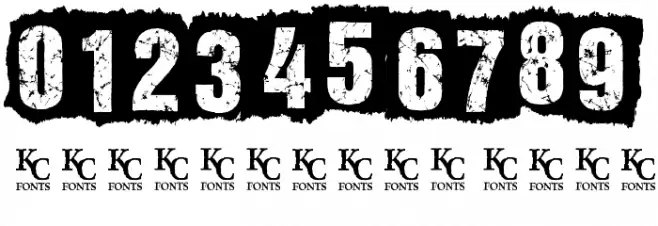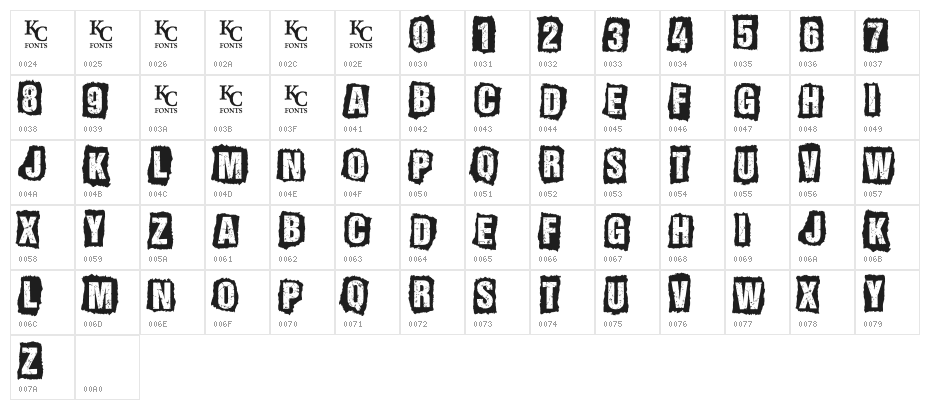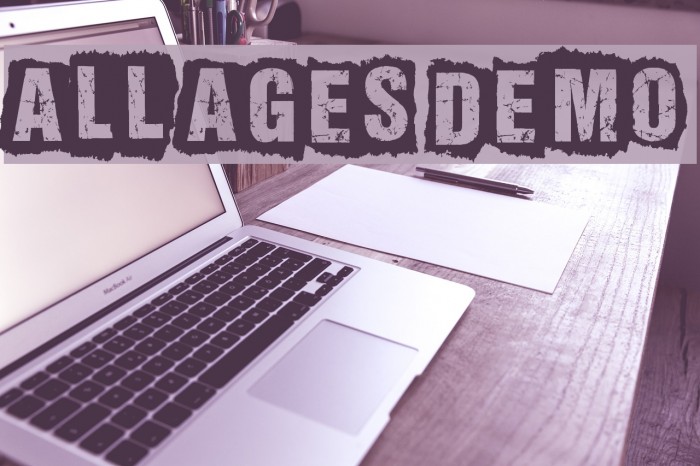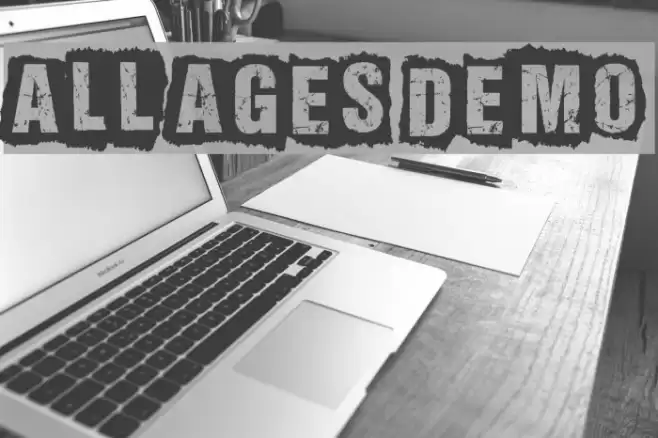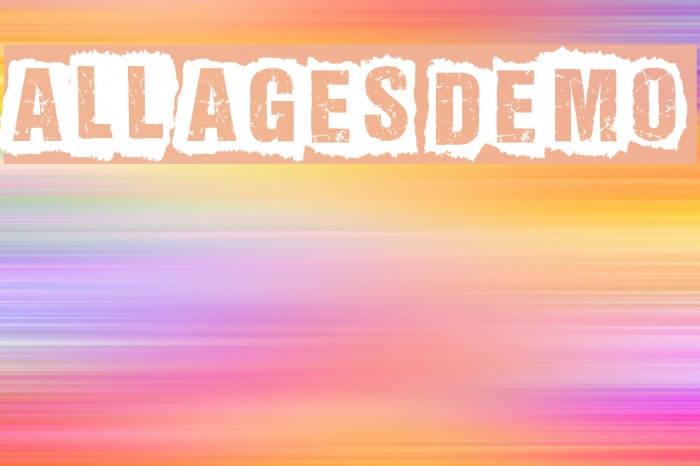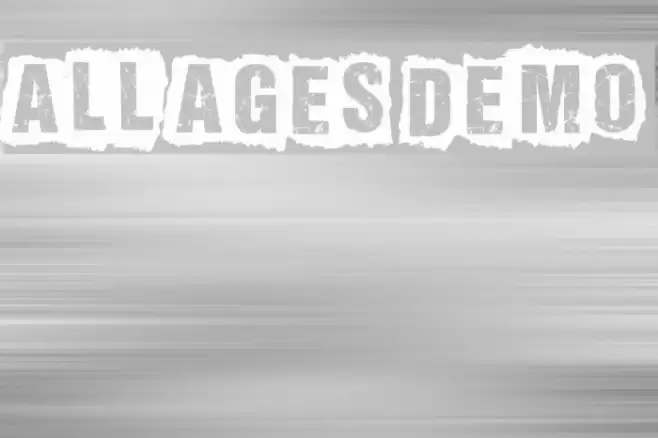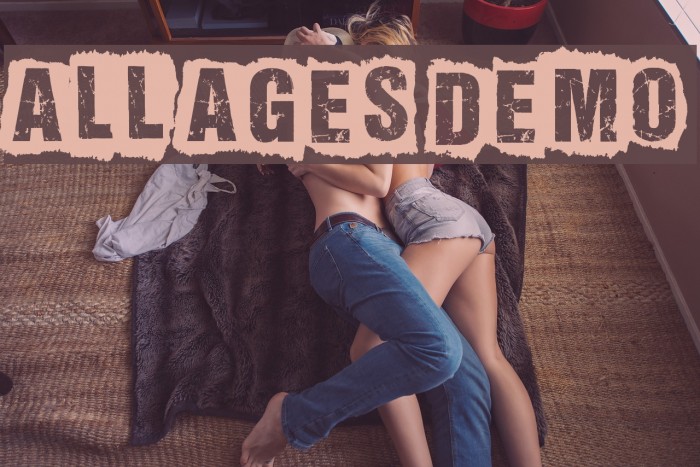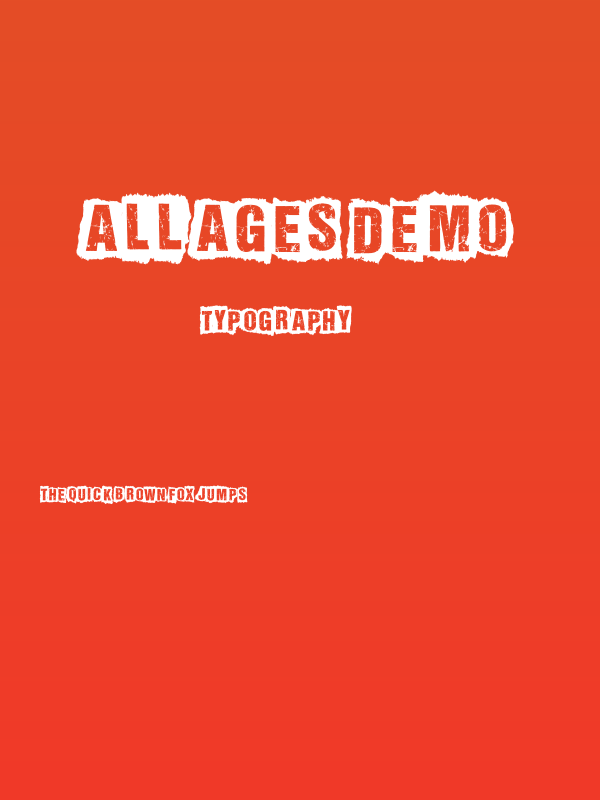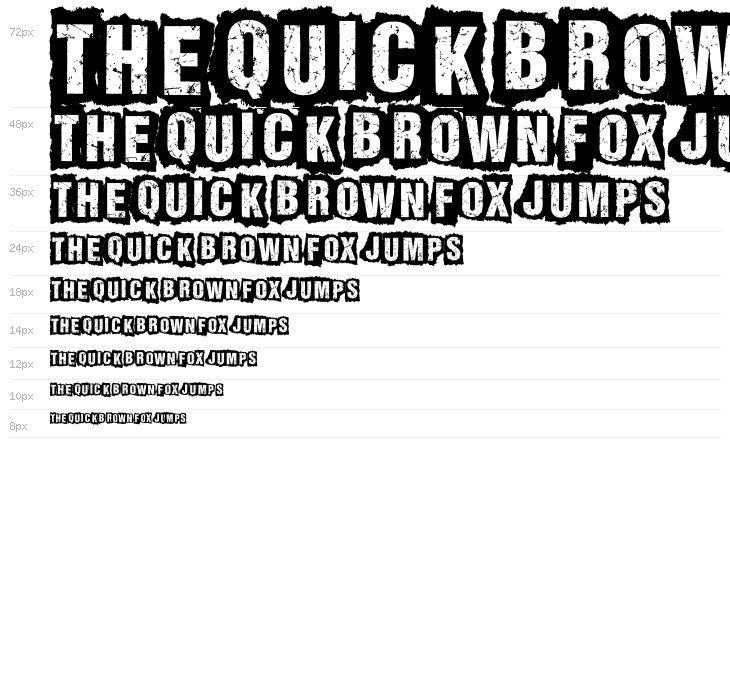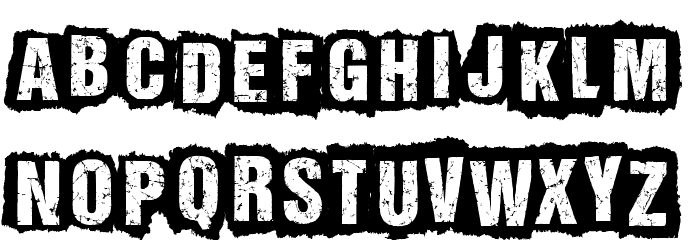
ALL AGES DEMO Font
ALL AGES DEMO Description
This font features a bold, distressed style with a rugged, textured appearance. The characters are uppercase and numerals, each with a rough, grunge-like edge that gives it a worn, vintage feel. The boldness of the letters ensures high visibility, making it suitable for impactful designs. The texture adds a layer of depth and character, making it ideal for projects that require a strong, edgy aesthetic. The font maintains a consistent weight throughout, with each letter having a uniform width and height, contributing to a cohesive look.
| Proposed Projects | Ideal for posters, album covers, branding for edgy products, and any design needing a vintage or grunge aesthetic. |